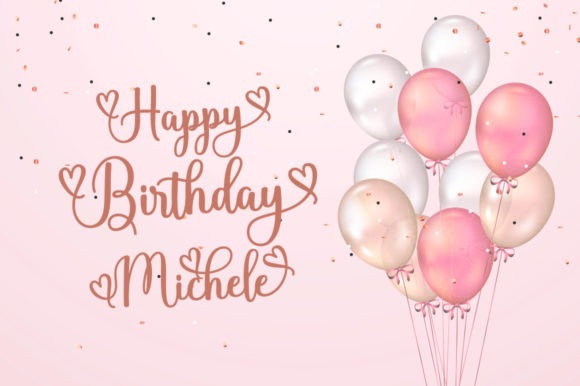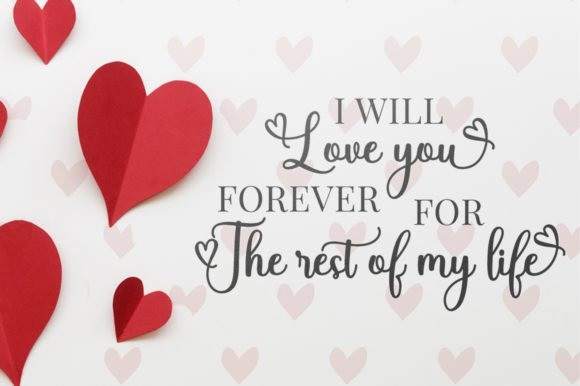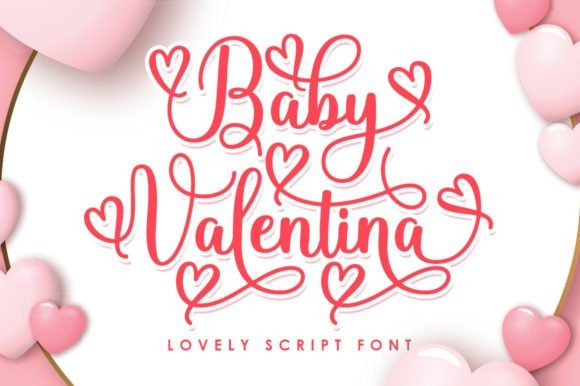
Baby Valentina Calligraphy Font
Baby Valentina is an enchanting handwritten font. This adaptable script font has a wide spectrum of applications ranging from greeting cards to headlines and is guaranteed to add a romantic feel to your next project.